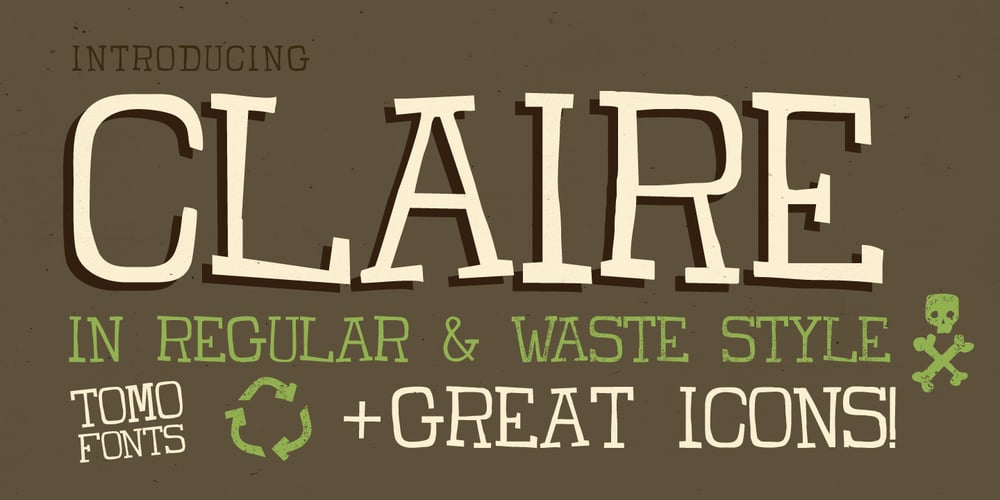
TOMO Claire
TOMO Claire font
TOMO Claire Font Family was designed by TOMO Fonts and published by TOMO Fonts. TOMO Claire contains 2 styles and family package options. TOMO Claire is a handmade typeface with a relaxed style and committed to the environment. It comes in two styles, Regular and Waste with a distressed look. This typeface is ideal for all types of projects related to the care of the environment and everything else. Be green! Act now!